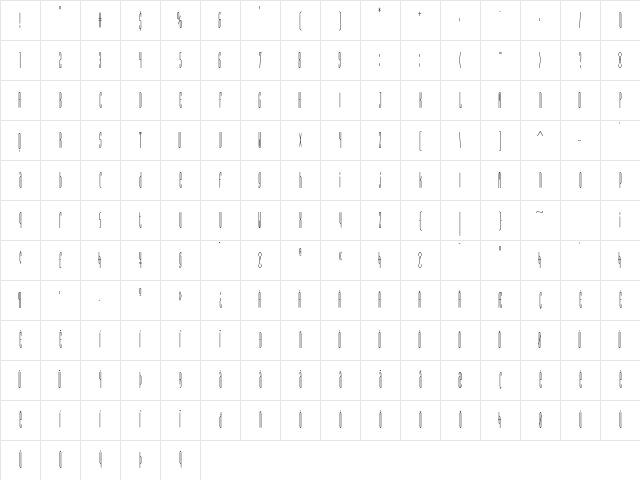
Typeface FourTwo Free Font
Typeface FourTwo
Style: FourTwo
Design Context for Typeface
Typeface is a composed and adaptable typeface that performs quietly and consistently across a wide range of design contexts.